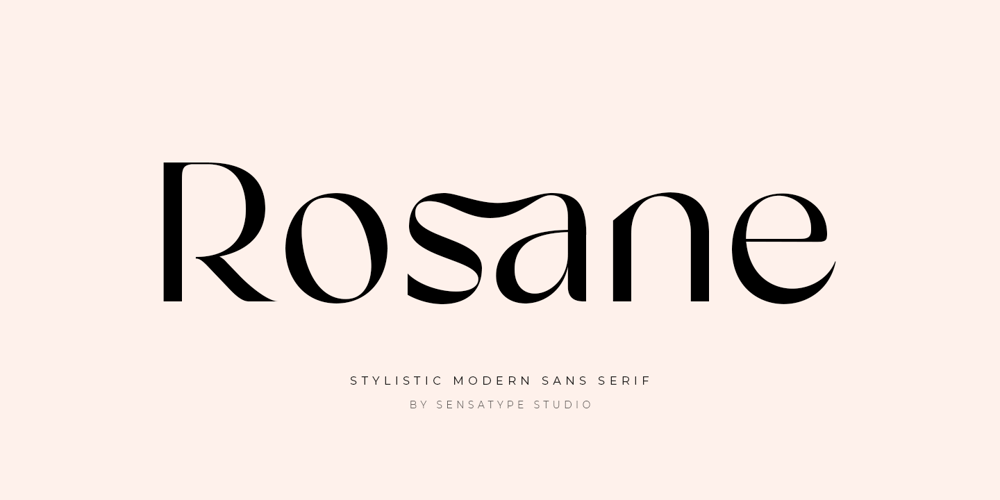
Rosane
Rosane font
Rosane Font Family was designed by Zamroni Hamzah and published by Sensatype Studio. Rosane contains 1 styles and family package options. A new Sans serif that we created special for branding needs, with extra ligature in unique shape add value of your brand. It so nice to leverage designer or product owner that need solutions to make their design look more stylish and modern. And specially for satisfy font, We prepared any ligatures, and any alternate characters to help you create unlimited variations for your creative needs.Satisfy sans serif font ready with: Any options to get creative variations (combination of Alternate and Ligatures) Preview as a inspirations that you can do with Satisfy font Ready with Lowercase and Uppercase characters Wish you enjoy our font!